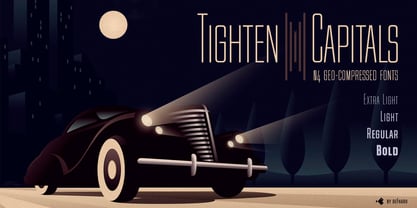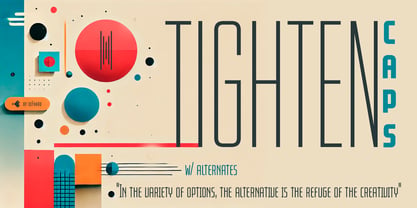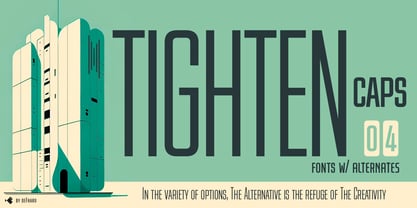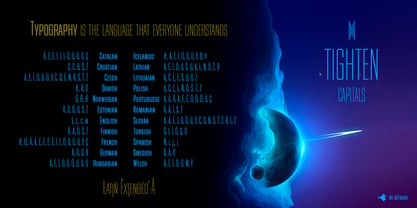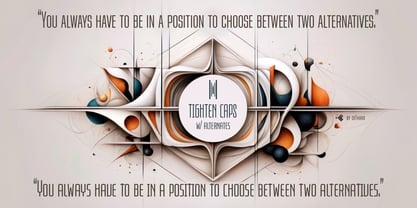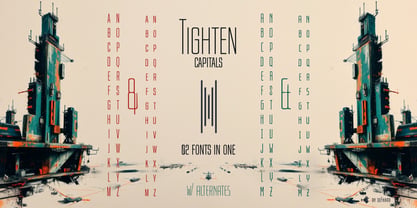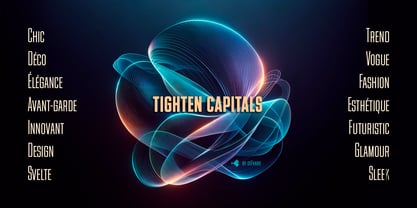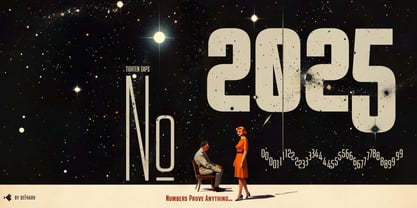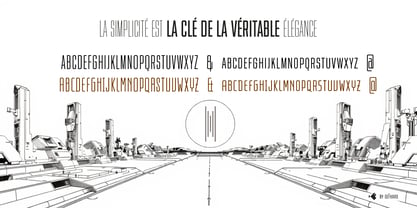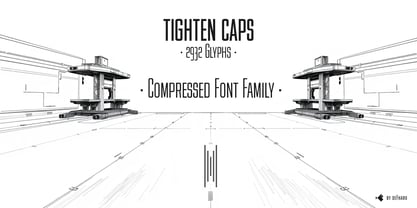
Tighten Caps
Tighten Caps is a compressed-aspect sans serif typeface family with multiple options (Advanced Open Type Features), making it an essential tool for any designer seeking a balance between elegance, functionality, and efficiency. With a unique style that blends art deco and retro futurism, Tighten Caps has an unmistakable and legible presence in any medium.
Tighten Capitals is exceptionally versatile and is recommended for a variety of applications, from editorial typesetting, brochure design, and product packaging to logo creation, signage, and film.
Availability in Four Weights
Tighten Capitals is available in four weights: Light, Regular, Medium, and Bold, each designed to suit a wide range of creative projects.
This variation in weights ensures that designers can select the appropriate weight based on the context of use, achieving clear and effective visual communication without compromising style.
Advanced Features
The typeface features several advanced Open Type Features, such as alternate letters, dynamic fractions, Petite Caps, Ordinals, superior letters, ligatures, and more.
Tighten Capitals offers a new dimension of possibilities with the inclusion of three sets of capital letters: Caps, Small Caps, and Petite Caps, as well as several sets of numbers (numerators, denominators, scientific numbers, ordinals, and more) accessible through Open Type Features. This offers unique typographic flexibility in graphic and advertising design, making it a highly functional and professional typeface, providing exceptional versatility for all your creative projects.